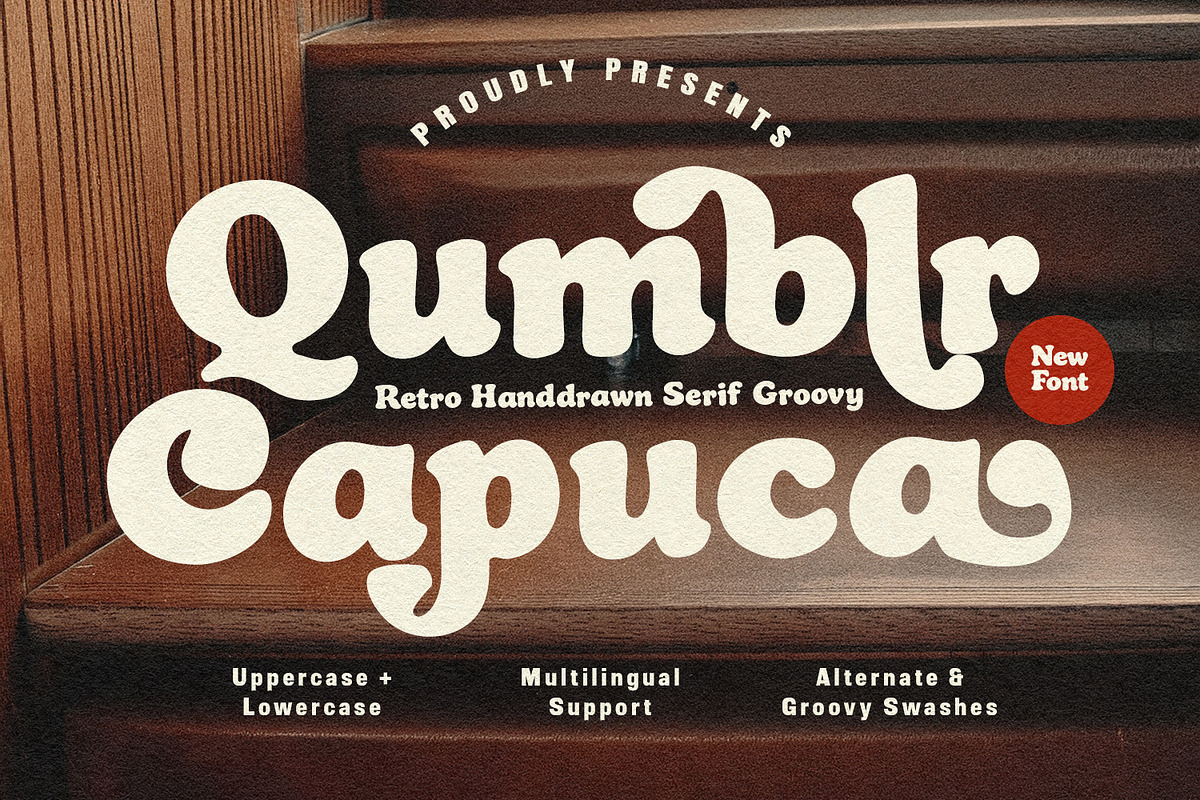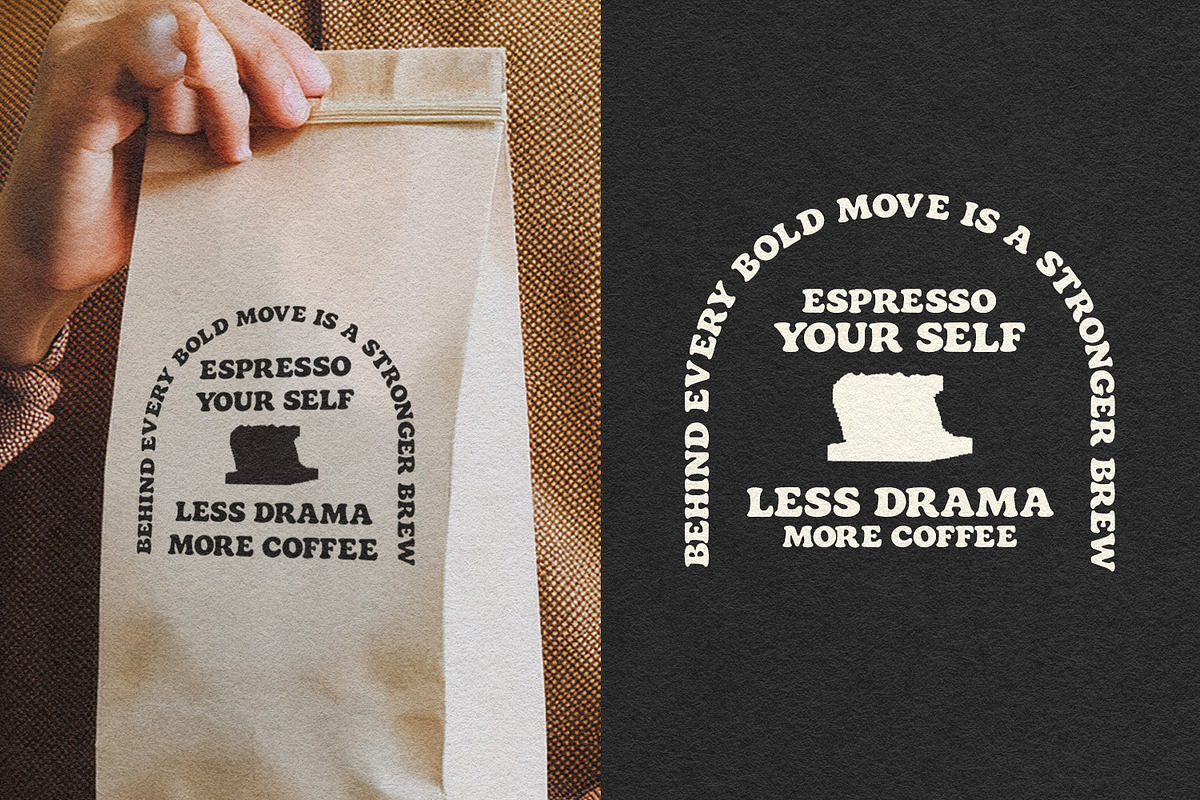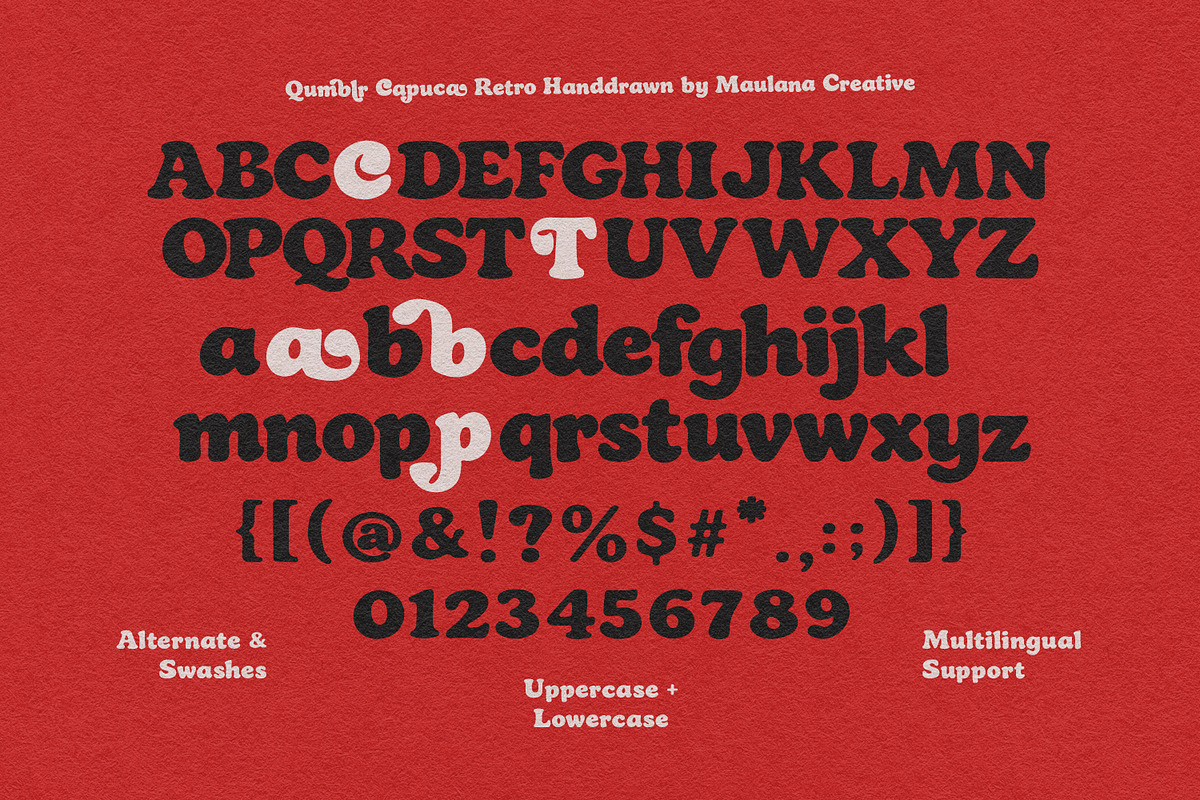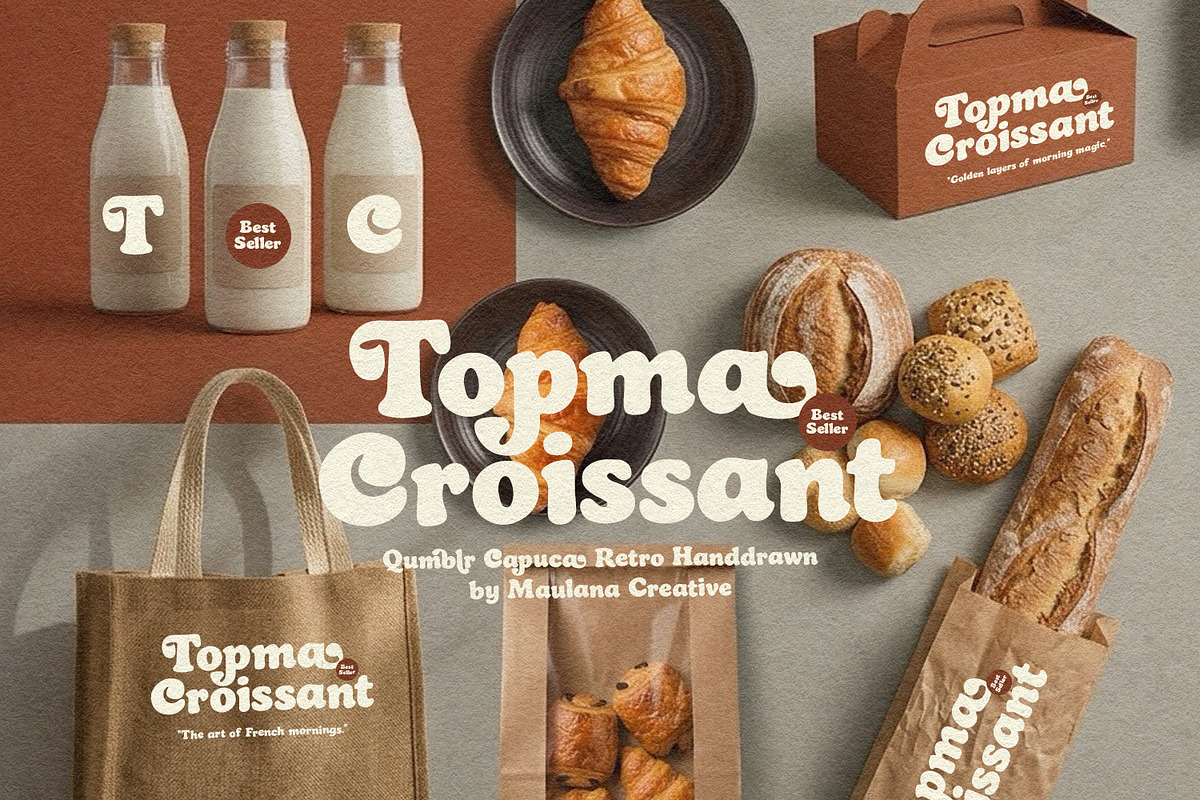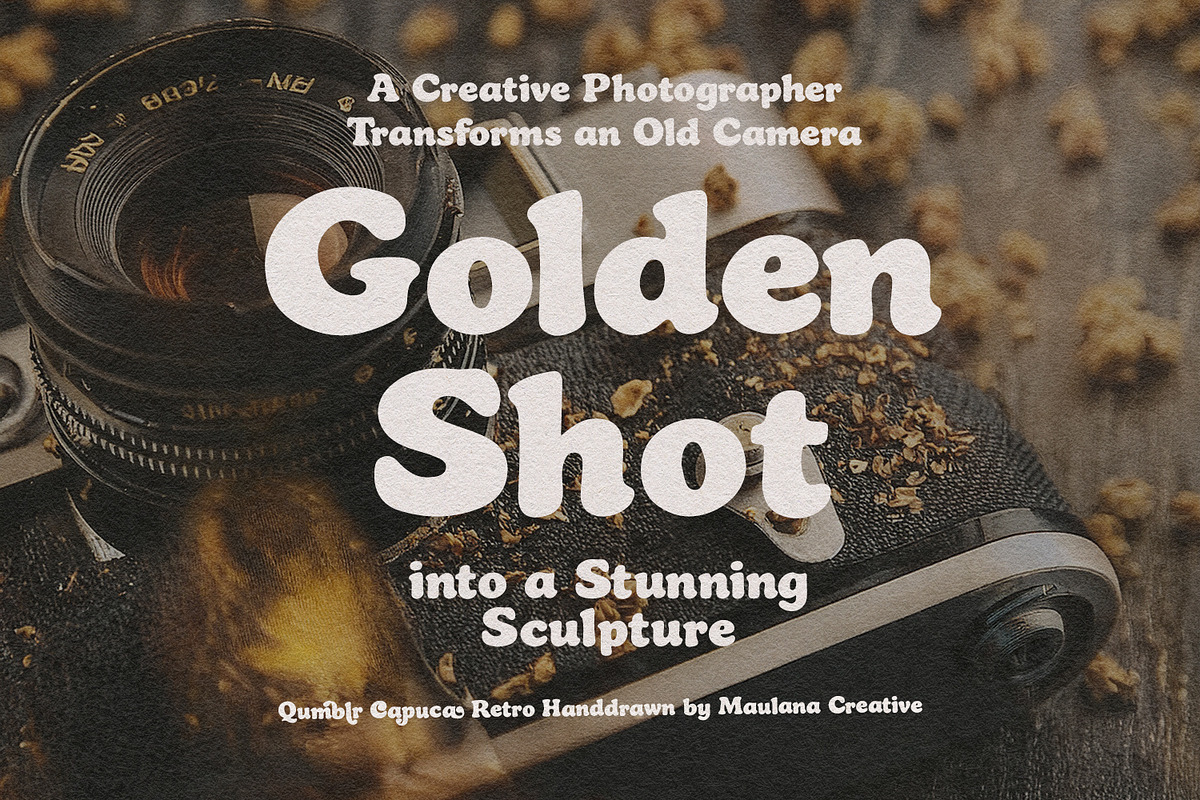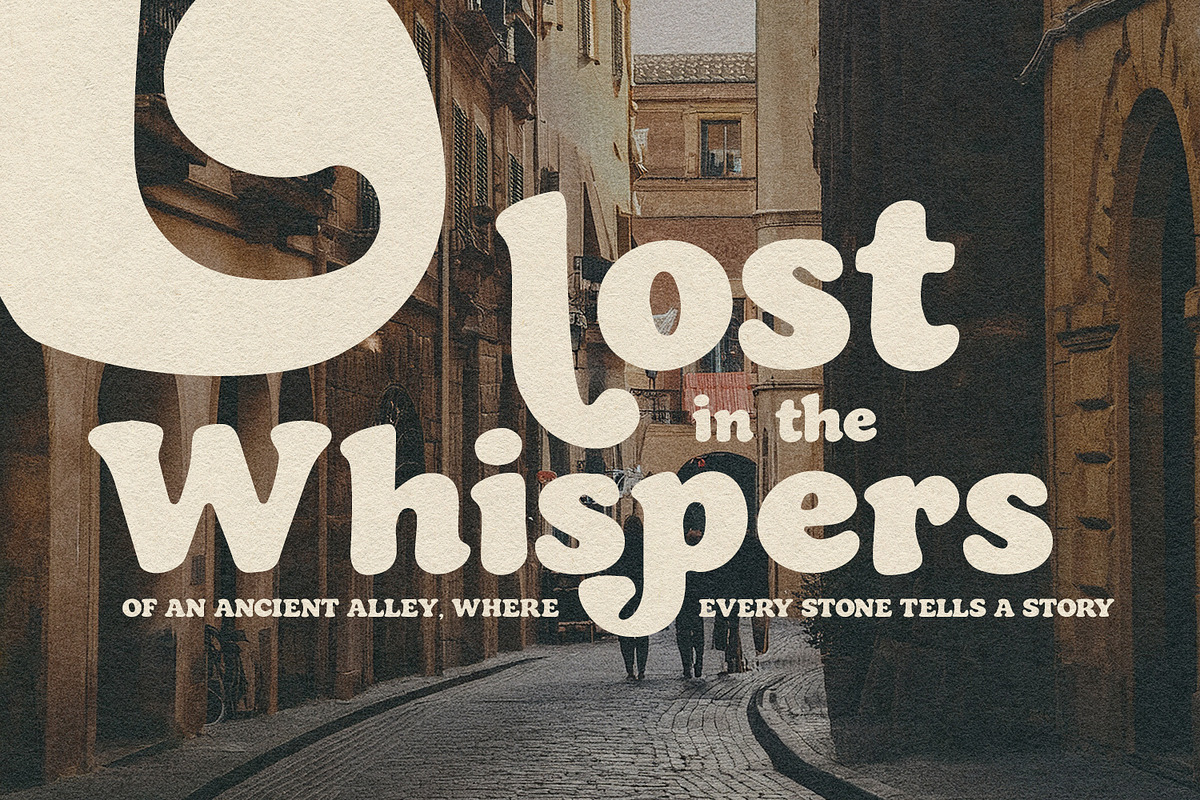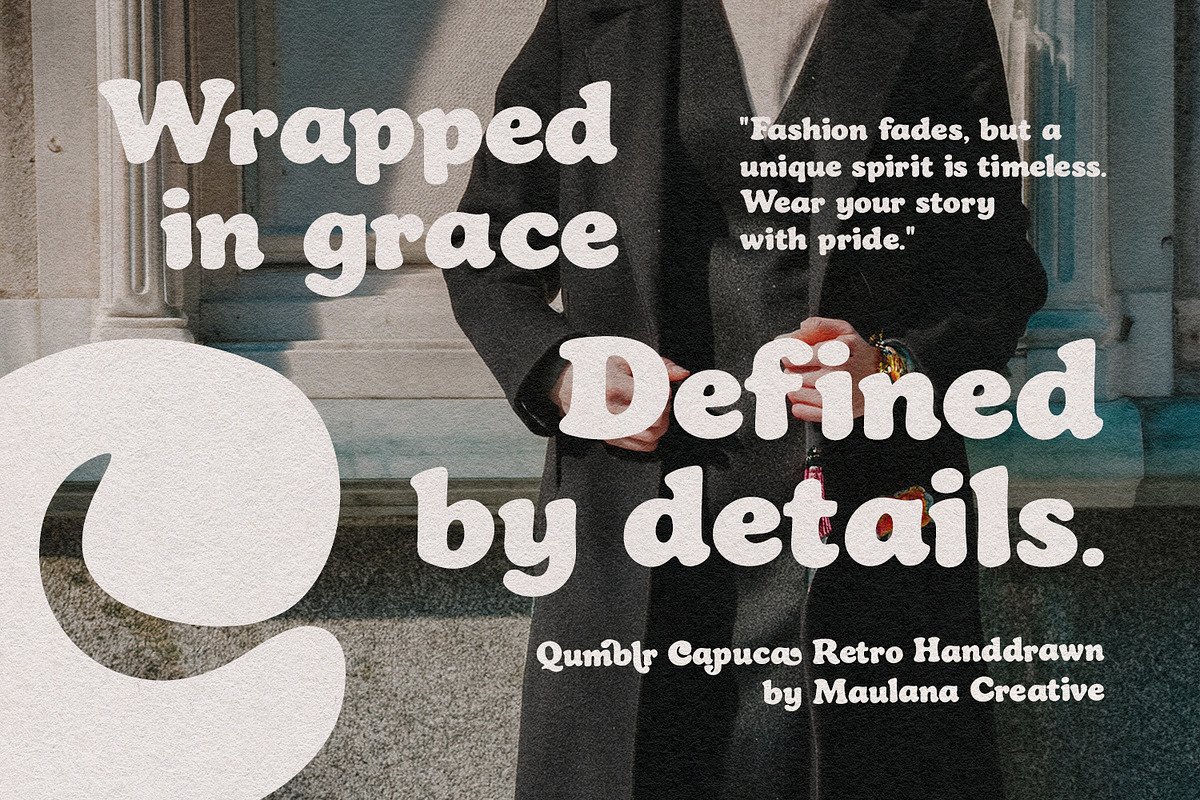
Qumblr Capuca Retro Handdrawn Serif
Step back into the vibrant aesthetics of the 70s with Qumblr Capuca, a hand-drawn serif font that perfectly captures the essence of retro-cool. Defined by its bold, curvaceous letterforms and playful "groovy" swashes, this typeface brings a touch of nostalgic charm and organic warmth to any design.
Whether you are crafting a vintage-inspired brand identity, eye-catching editorial headlines, or stylish lifestyle packaging, Qumblr Capuca offers a unique balance of personality and professional craftsmanship. It features a full set of uppercase and lowercase characters, multilingual support, and a variety of alternate glyphs that allow you to customize your typography with flowing, artistic flourishes.
- Full character set
- Numbers, Punctuation, and Symbols
- Alternates for a natural handwriting flow